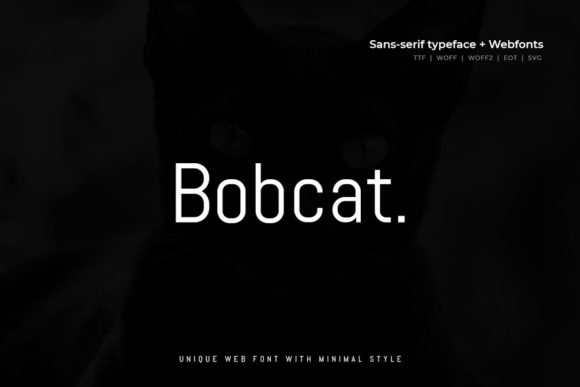
The Bobcat Font: A Clean and Simple Sans Serif for Your Design Needs
As designers, we’ve all been there – stuck on a project, struggling to find the perfect font that complements our design. I recall working on a logo project for a client who wanted a clean and modern look. After hours of scouring font libraries, I stumbled upon the Bobcat font. It was love at first sight! ✨ The simplicity and elegance of this sans serif font won me over, and I’ve been using it ever since.
An Honest Review of Bobcat Font
- ✅ Clean and simple design that works well for logos, quotes, posters, and headlines
- ✨ Highly legible, even at small font sizes
- 🎨 Versatile and can be used for a wide range of design projects
- 🖌️ Works well with both bold and subtle color schemes
While Bobcat font is an excellent choice for many design projects, there are a few things to keep in mind:
- ⚠️ Limited glyphs and OpenType features compared to other fonts
- 🤔 May not work well for body text or lengthy paragraphs due to its simplicity
A Practical Guide to Using Bobcat Font
The Backstory of Bobcat Font
While the origins of Bobcat font are unclear, it’s likely that the designer was inspired by the simplicity and elegance of modernist design. The font’s clean lines and geometric shapes evoke a sense of sophistication and professionalism. Whether used for logos, posters, or headlines, Bobcat font is sure to make a statement.
Q: What type of projects is Bobcat font best suited for?
Bobcat font is versatile and can be used for a wide range of design projects, including logos, quotes, posters, headlines, and more.
Q: Can I use Bobcat font for body text?
While Bobcat font is highly legible, it may not be the best choice for lengthy body text due to its simplicity. Consider using a font with more OpenType features or a serif font for better readability.